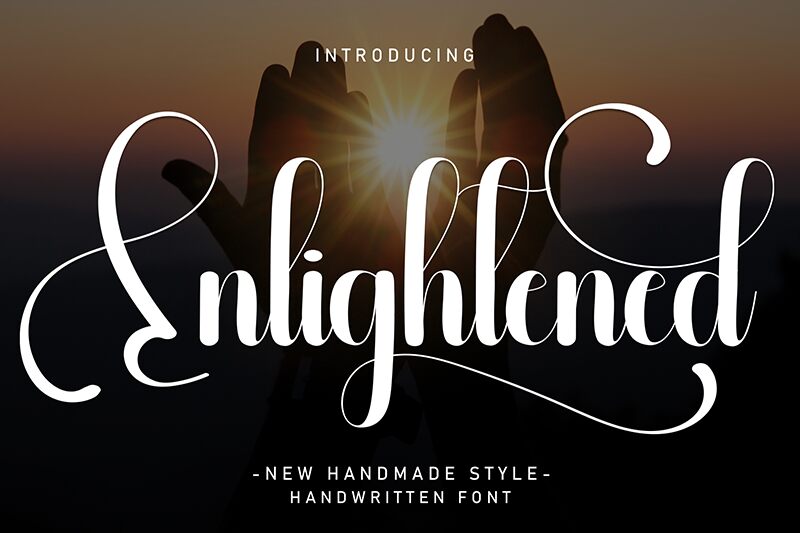
Enlightened
Enlightened font by Andi Moz is an elegant, expressive, and flowing handwritten font. Its condensed style gives it a modern touch that pairs beautifully with its artistic flair. Designed as a contemporary script, the free font is a must-have when you want to elevate any type of written project.
Use Enlightened font for book covers, logos, signatures, movie posters, stationery designs (invitations or cards), brochures and flyers headlines, wordmark projects, magazine covers, branding elements like business cards and packaging designs as well.